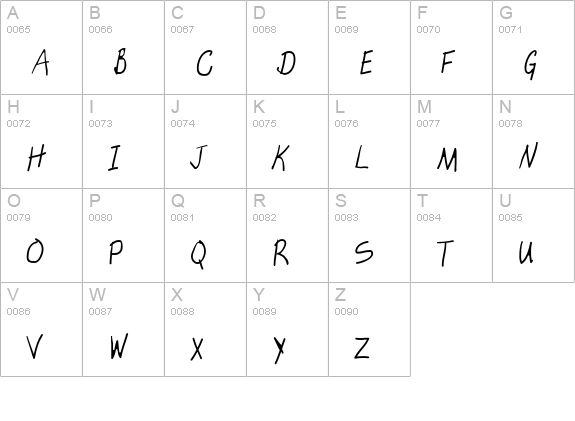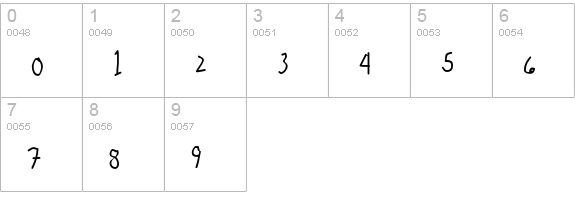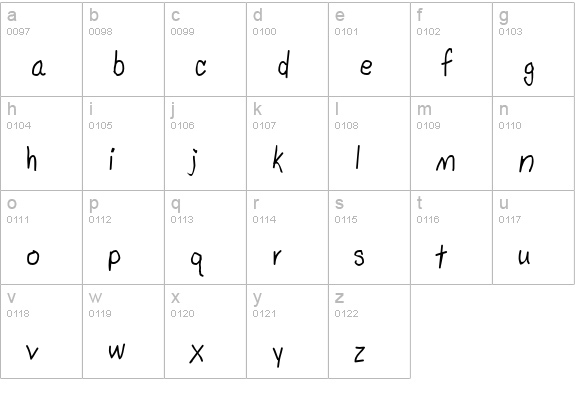
Scrawl-Light Font Details
Scrawl-Light is a refined, elegant variant in the Scrawl typeface family \xE2\x80\x94 well suited to elegant body text, refined sub-headings, and luxury branding.
Introducing Scrawl-Light, a captivating and effortlessly stylish font that will bring your designs to life with its unique hand-drawn charm. This font is the perfect blend of modernity and creativity, making it a versatile choice for a wide range of projects. Scrawl-Light features elegant and flowing letterforms, with a hint of whimsy that adds a touch of personality to any design. Its delicate strokes and subtle irregularities give it a handcrafted feel, making it the ideal choice for those looking to add a touch of authenticity to their creations. Whether you're designing invitations, branding materials, social media graphics, or anything in between, Scrawl-Light is sure to make a lasting impression. Its versatility allows it to effortlessly adapt to any style or mood, whether it be playful and fun or elegant and sophisticated. One of the best things about Scrawl-Light is that it is available for free download at FontsMarket.com. Yes, you read that right - this stunning font can be yours at no cost! FontsMarket.com is known for its vast collection of high-quality fonts, and Scrawl-Light is no exception. Simply head over to the website, search for Scrawl-Light, and download it instantly to start incorporating its charm into your designs. So why wait? Take advantage of this amazing opportunity to enhance your designs with Scrawl-Light. Download it for free at FontsMarket.com and let your creativity soar.